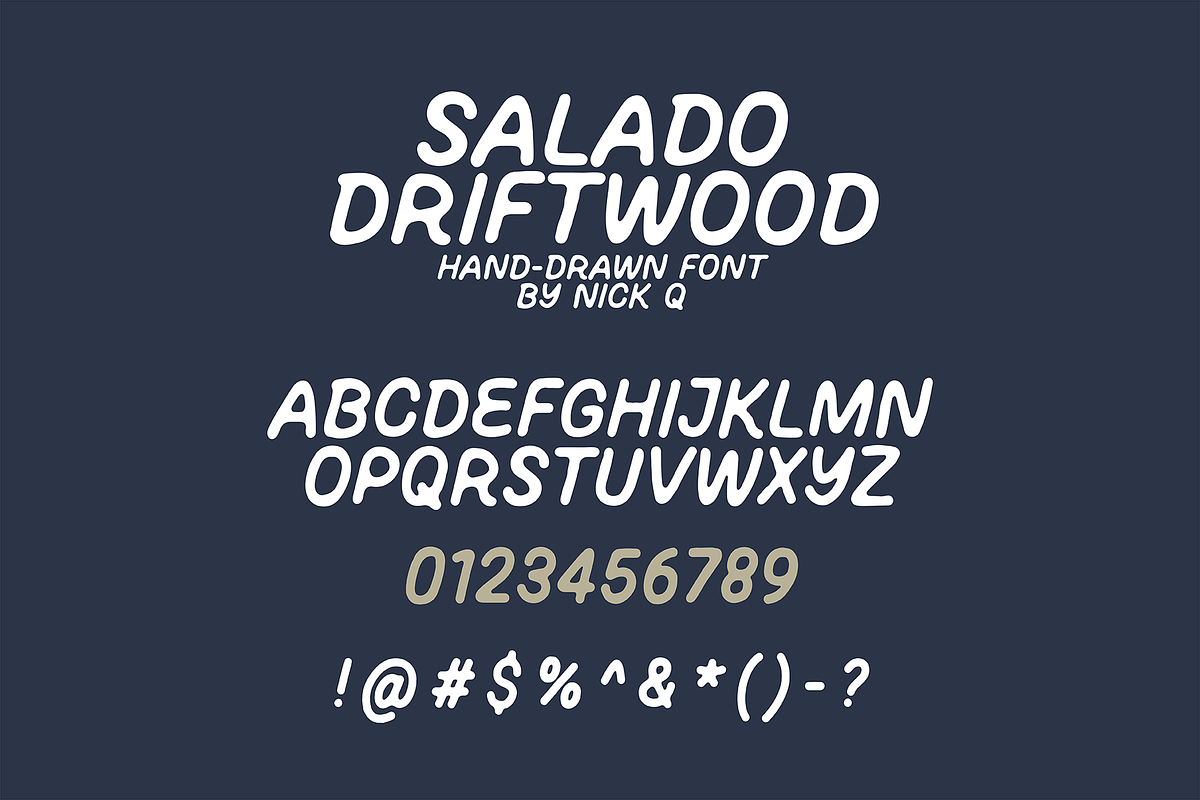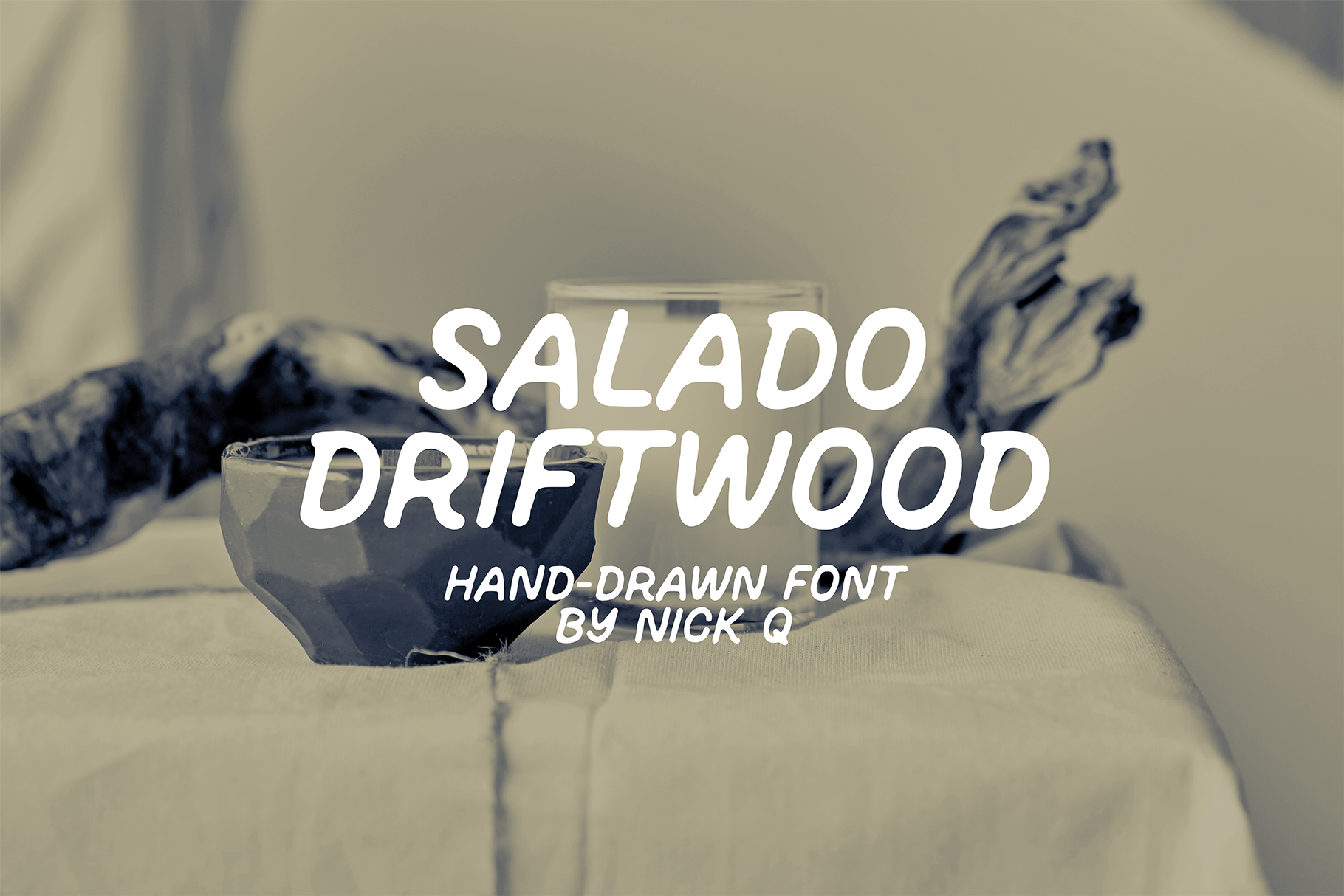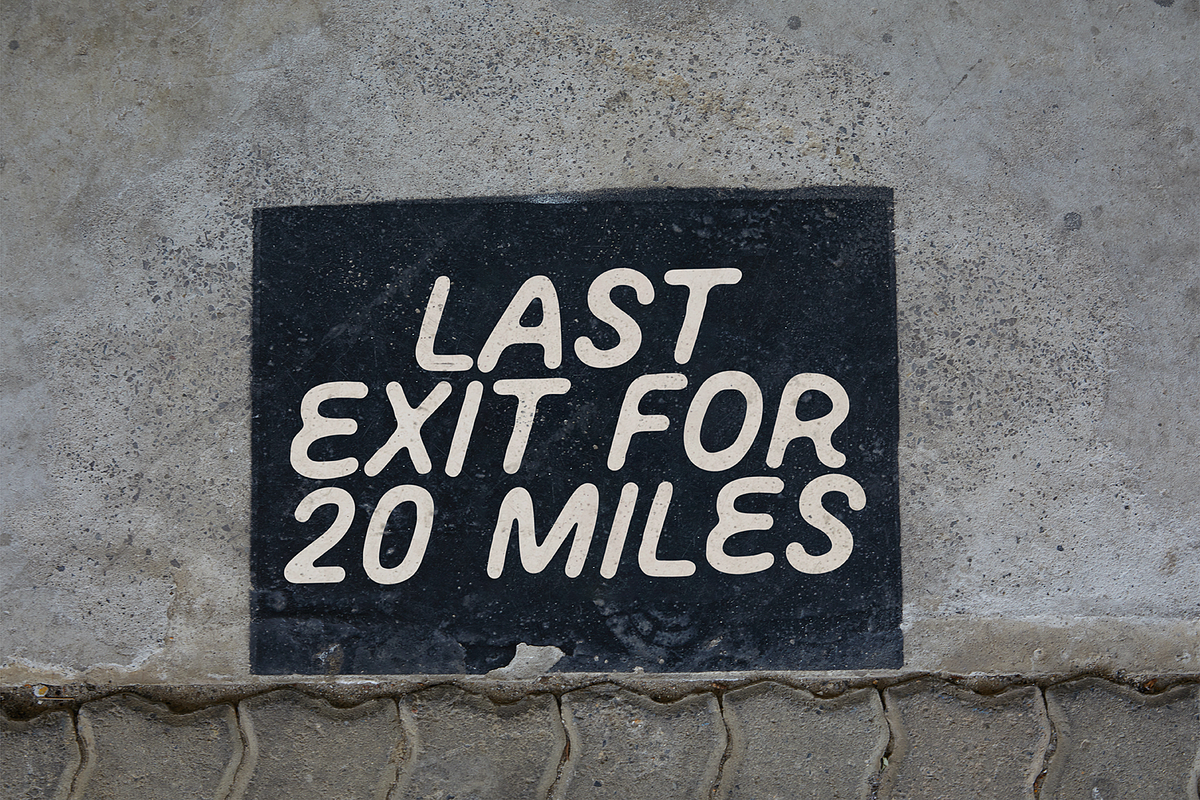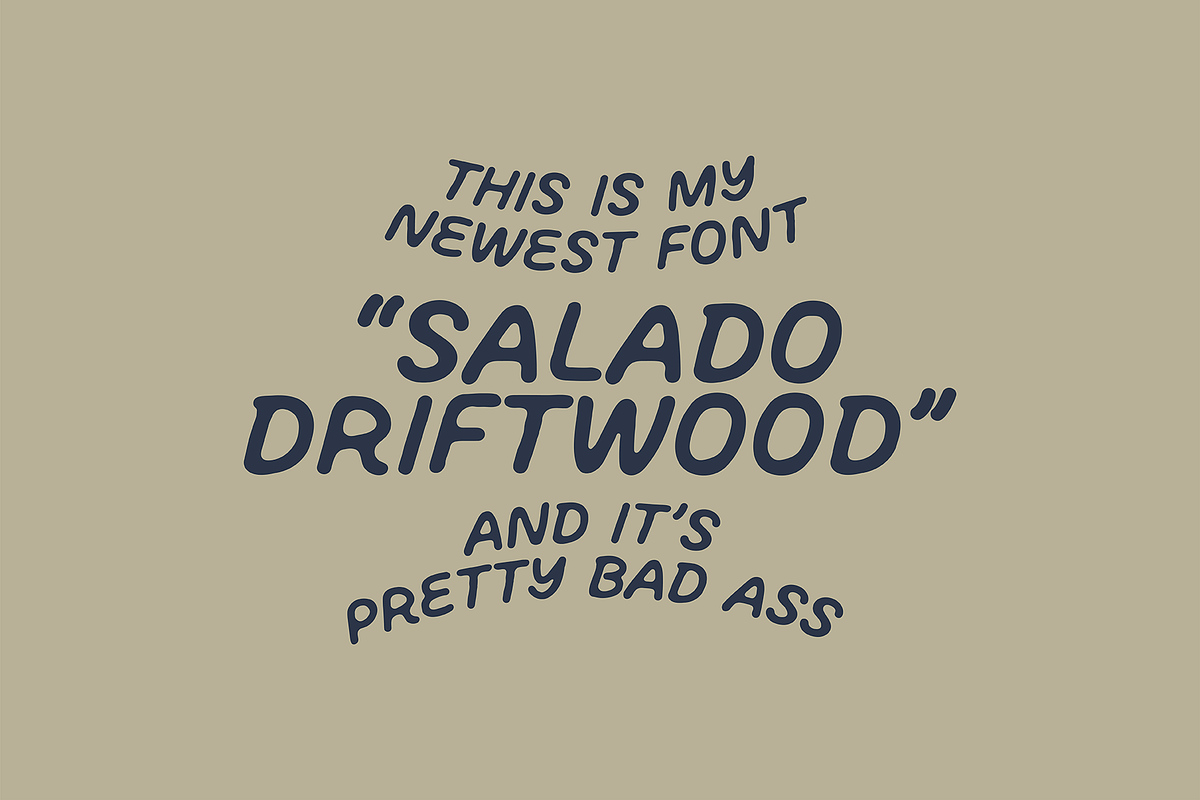
Salado Driftwood Hand Drawn Font
Here’s my newest font based on old hand drawn signs and my personal handwriting. This one has all uppercase characters numbers and some symbols. Enjoy!